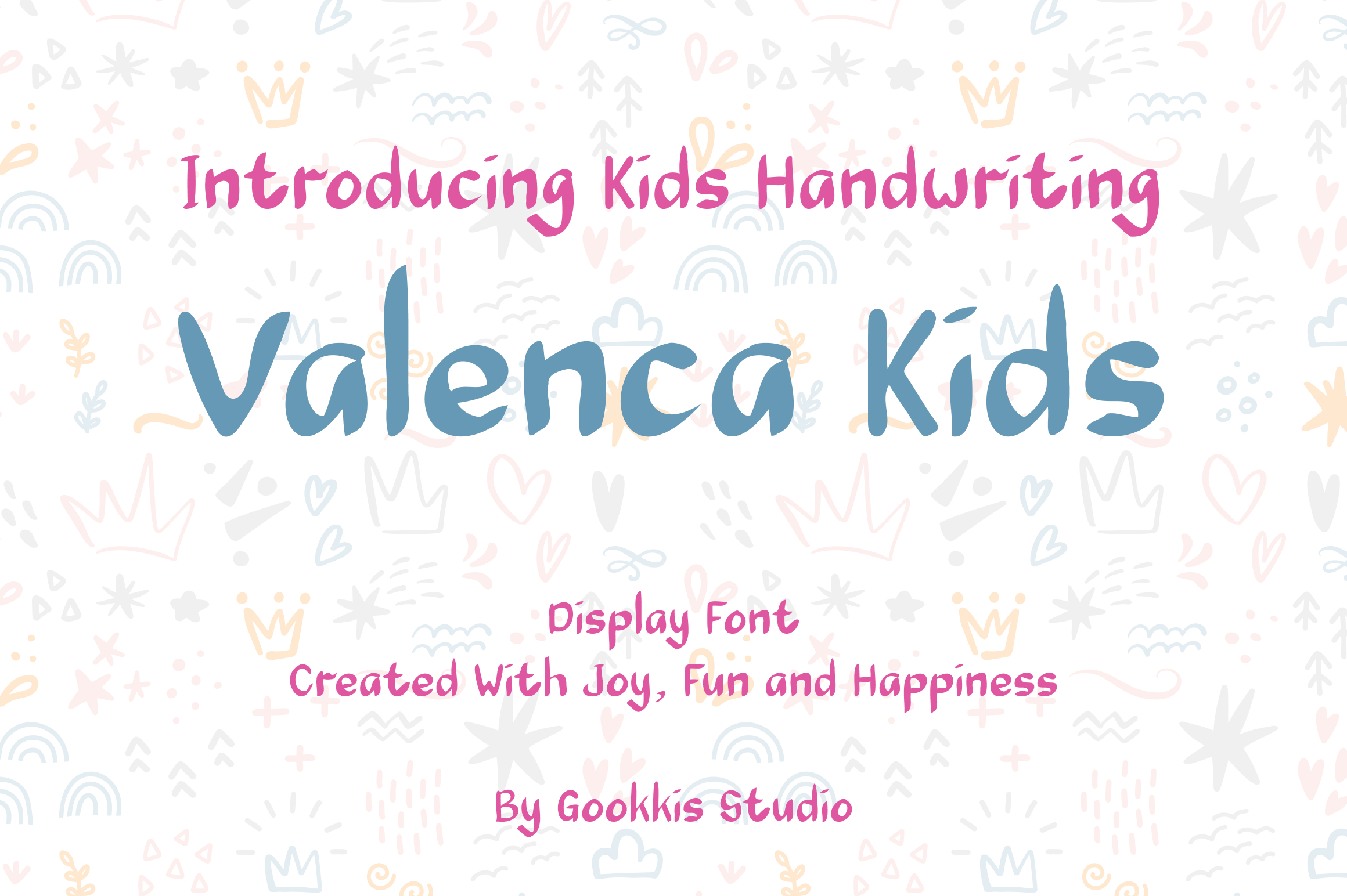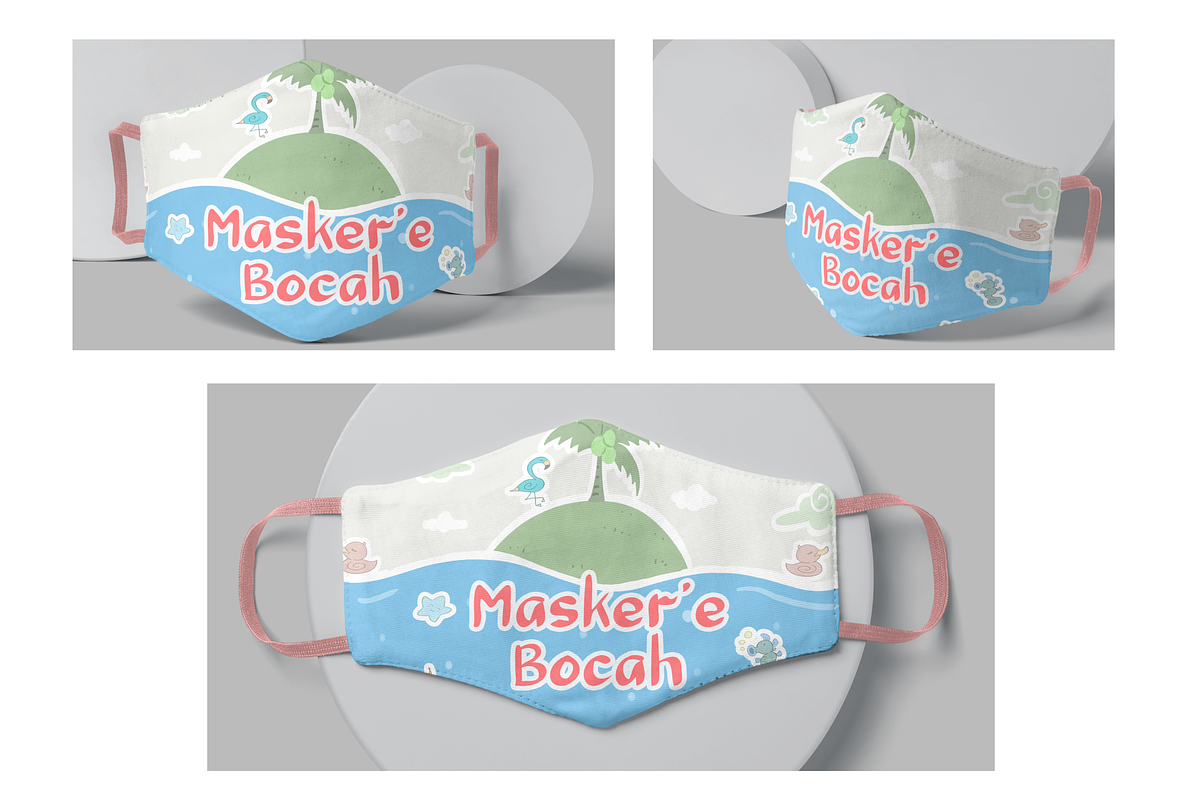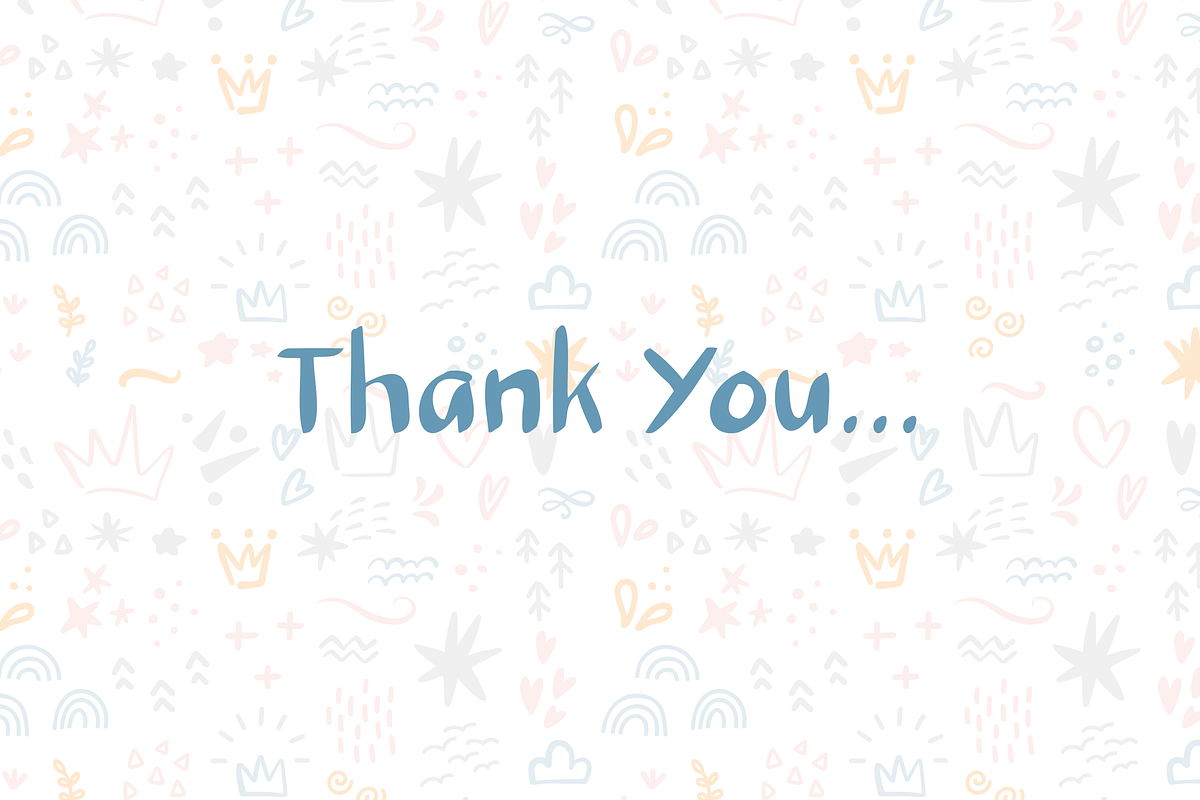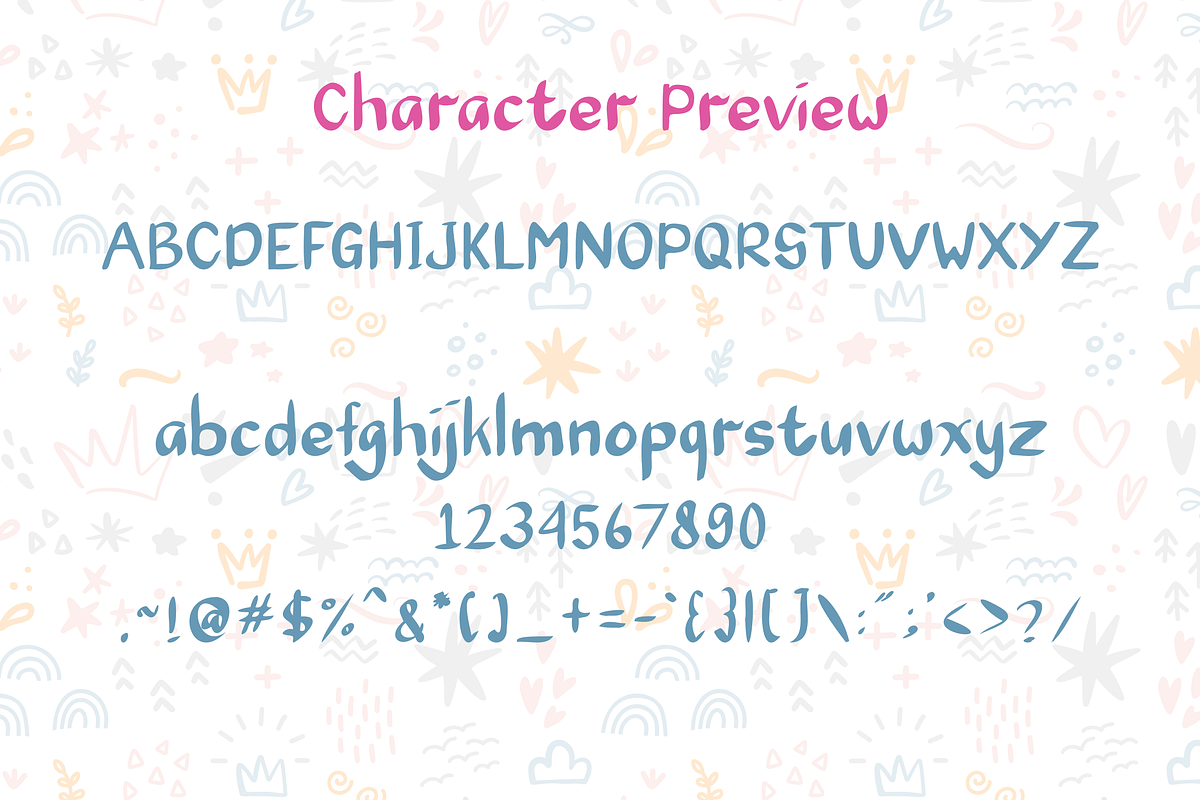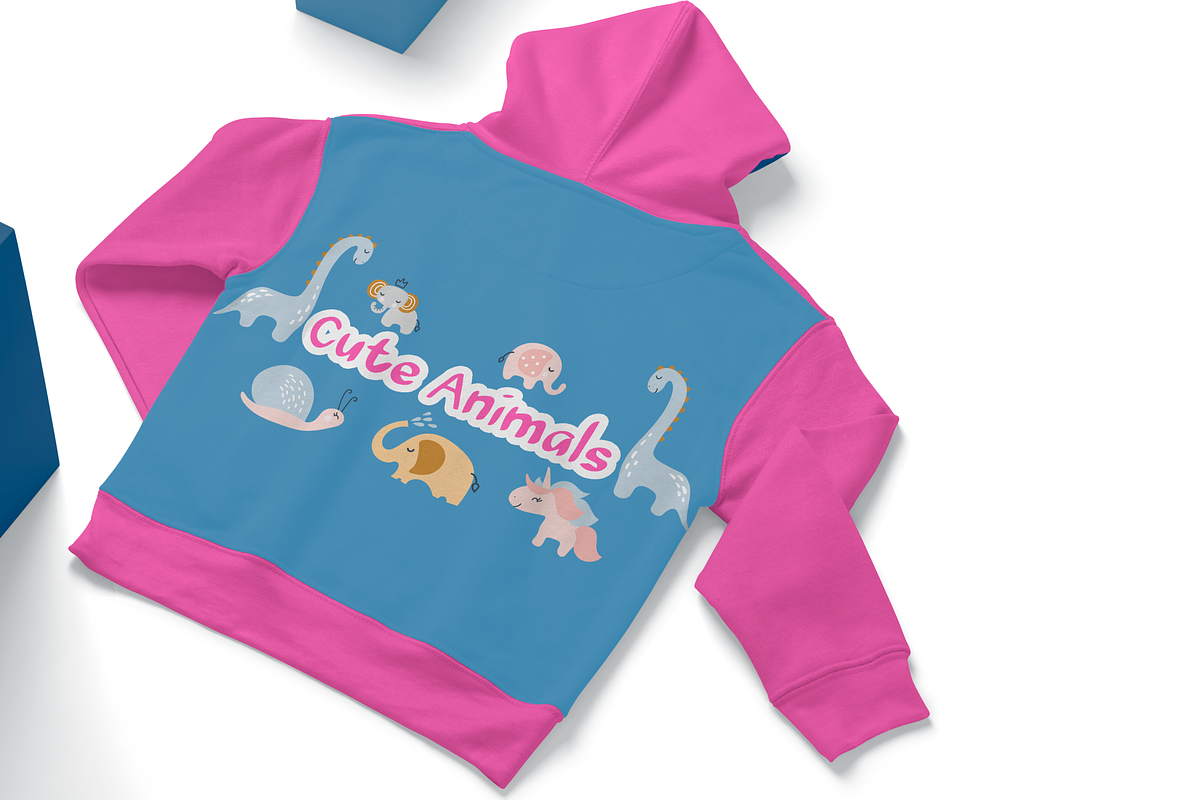
Valenca Kids Handwritten Font
Valenca Kids is a cute and playful display font. Whether you use it for cartoon-related designs, children's games, or just any creation that requires a lovely touch, this font will be an amazing choice.